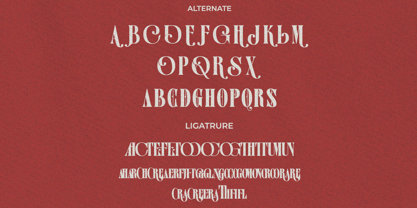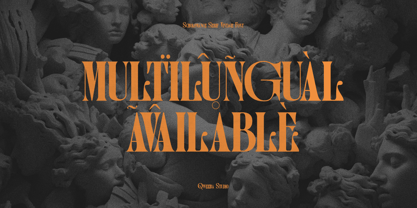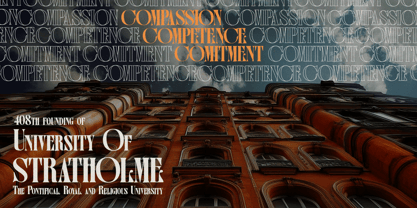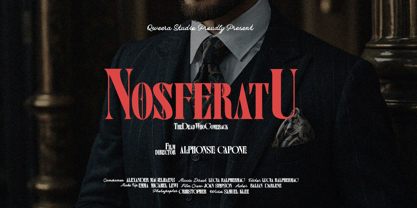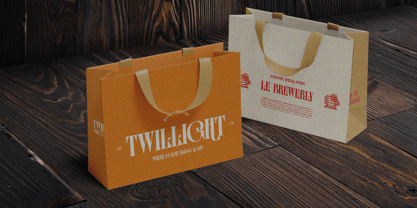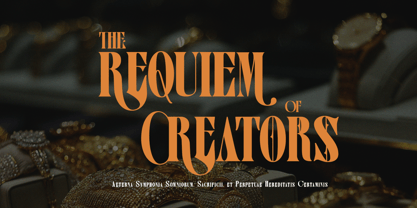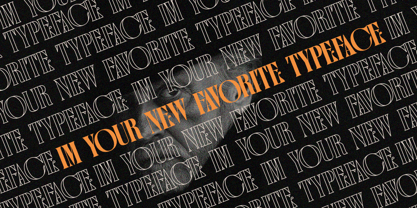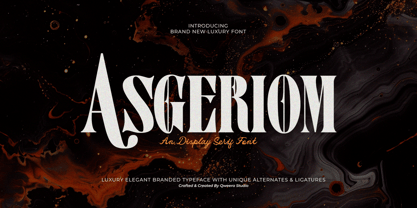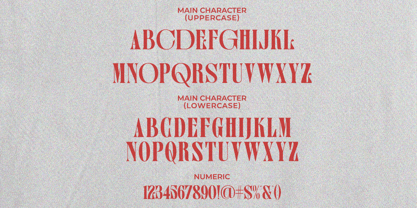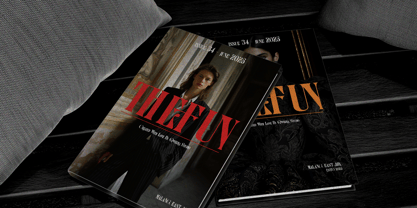
Asgeriom
The Asgeriom Font Family was designed by Idhham Cholid Rikzano Yahya and published by Qweera Studio. Asgeriom contains 2 styles and family package options. More about this family
Asgeriom is a stylish display serif typeface crafted with precision and elegance. Featuring unique alternates and ligatures, this font offers flexibility for designers to create eye-catching and customizable layouts effortlessly. Perfect for branding, posters, magazines, and print designs, Asgeriom delivers a sophisticated touch to any project. Elevate your designs with this modern serif font, ideal for professional and creative use.
• All Multilingual symbol
• Opentype features ( ligature, alternate )
Multilingual character supports : (Afrikaans, Albanian, Catalan, Croatian, Czech, Danish, Dutch, English, Estonian, Finnish, French, German, Hungarian, Icelandic, Italian, Lithuanian, Maltese, Norwegian, Polish, Portuguese, Slovenian, Spanish, Swedish, Turkish, Zulu)